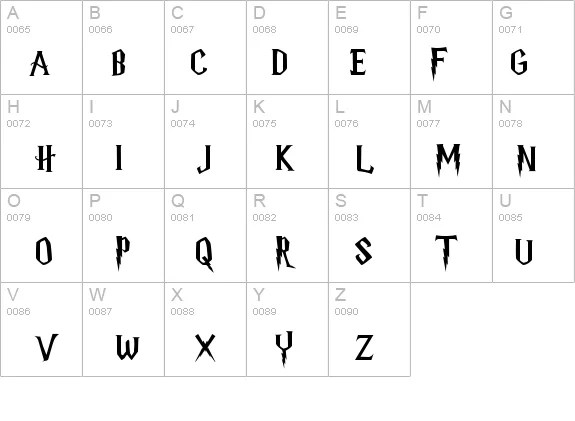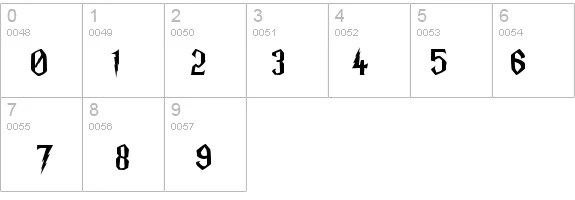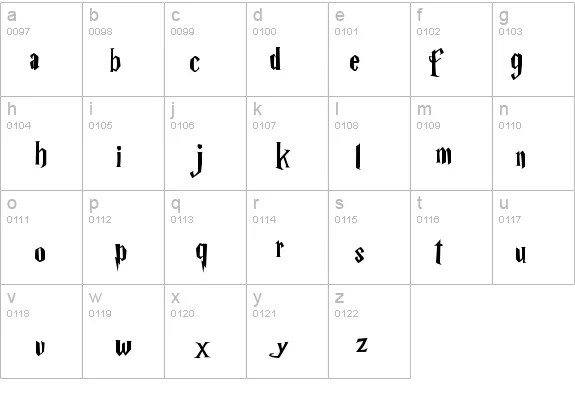
Harry P Font Copy And Paste
Harry P Font Copy And Paste. Harry potter is a novel series written by the british author j. The book tells the adventure story of young wizard harry potter with his friends at witchcraft and wizardry school.
The Book Tells The Adventure Story Of Young Wizard Harry Potter With His Friends At Witchcraft And Wizardry School.